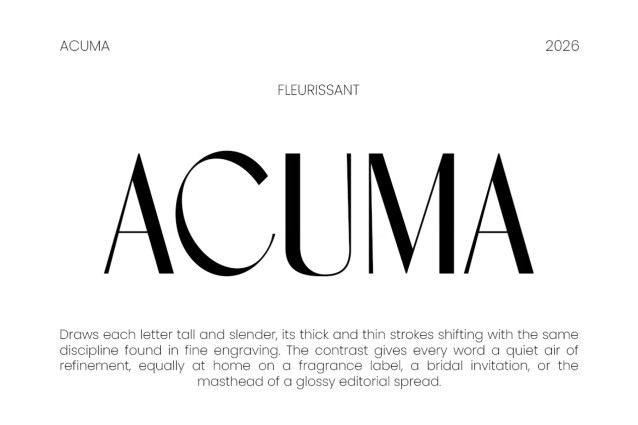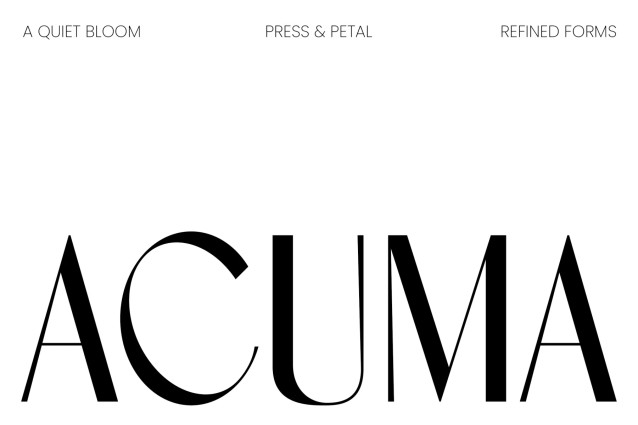
ACUMA – Refined Editorial Serif Font
Instagram Font Acuma is a refined serif font with a sleek and elegant editorial look. At first glance, its high-contrast letterforms create a graceful and luxurious aesthetic. Moreover, the slim strokes and stylish curves give every word a sophisticated fashion feel. Meanwhile, its clean proportions keep the typography polished and easy to style. As a result, ACUMA adds a beautiful editorial touch to both digital and print designs.